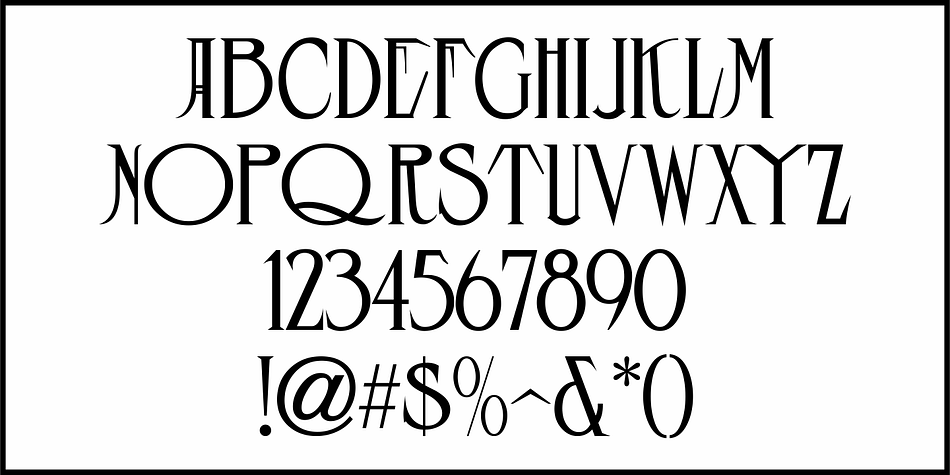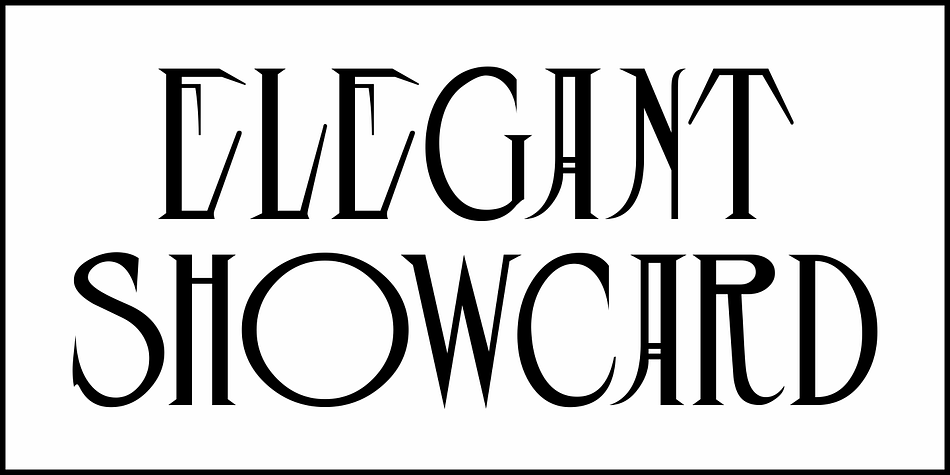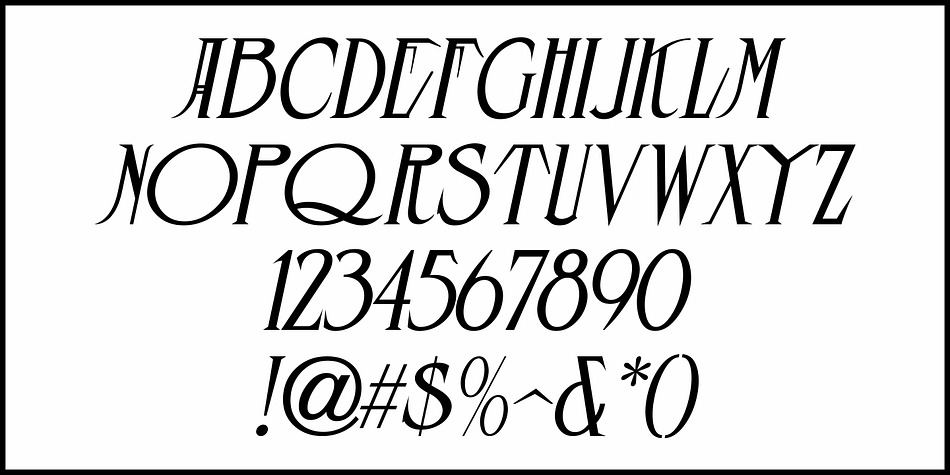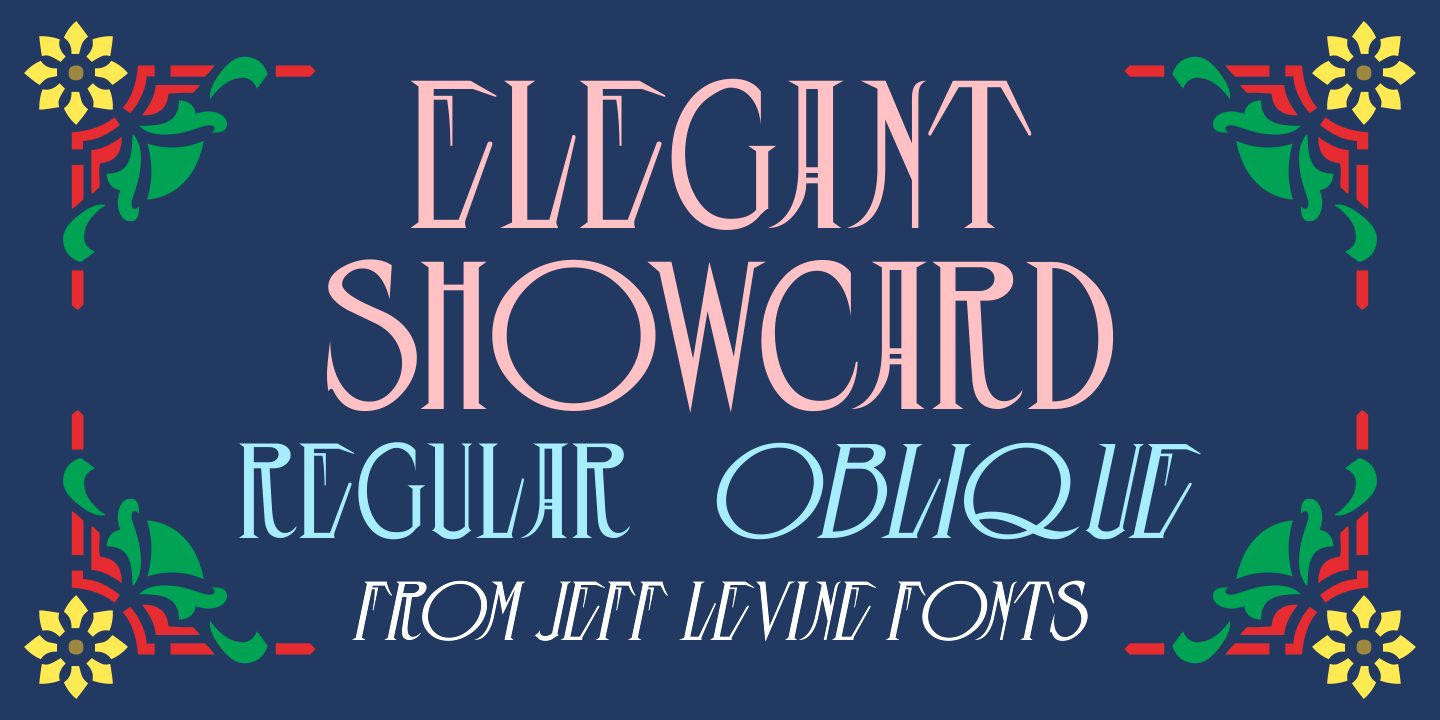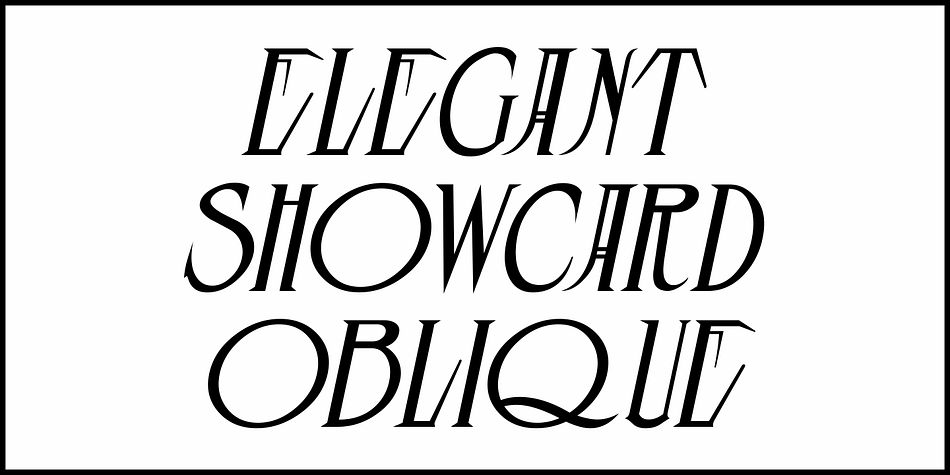
ELEGANT SHOWCARD JNL
Designed by Jeff Levine, Elegant Showcard JNL is an art nouveau and display serif font family. This typeface has two styles and was published by Jeff Levine Fonts.
“Baker’s Showcard Book” (1916) was an early 20th Century instructional book on sign lettering.
One of the sample alphabets entitled “Decorative Roman” was a spurred serif, Art Nouveau design that has been recreated digitally as Elegant Showcard JNL in both regular and oblique versions.